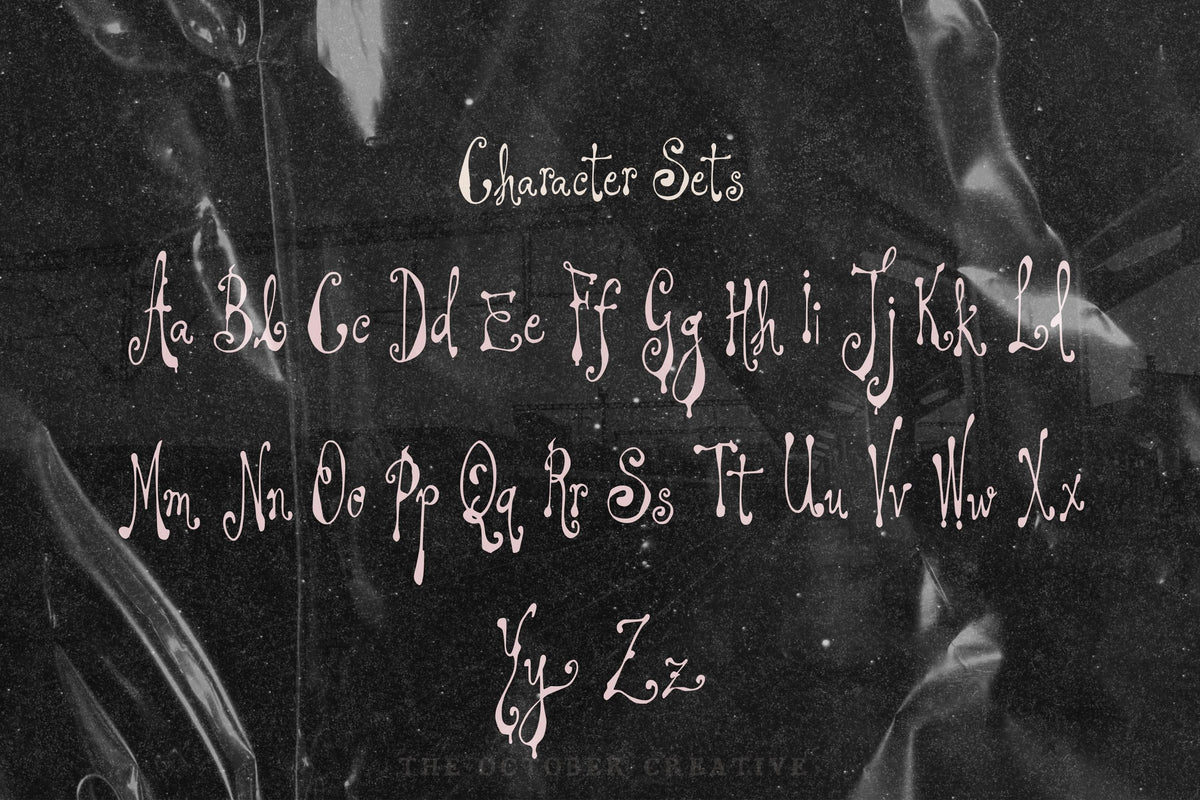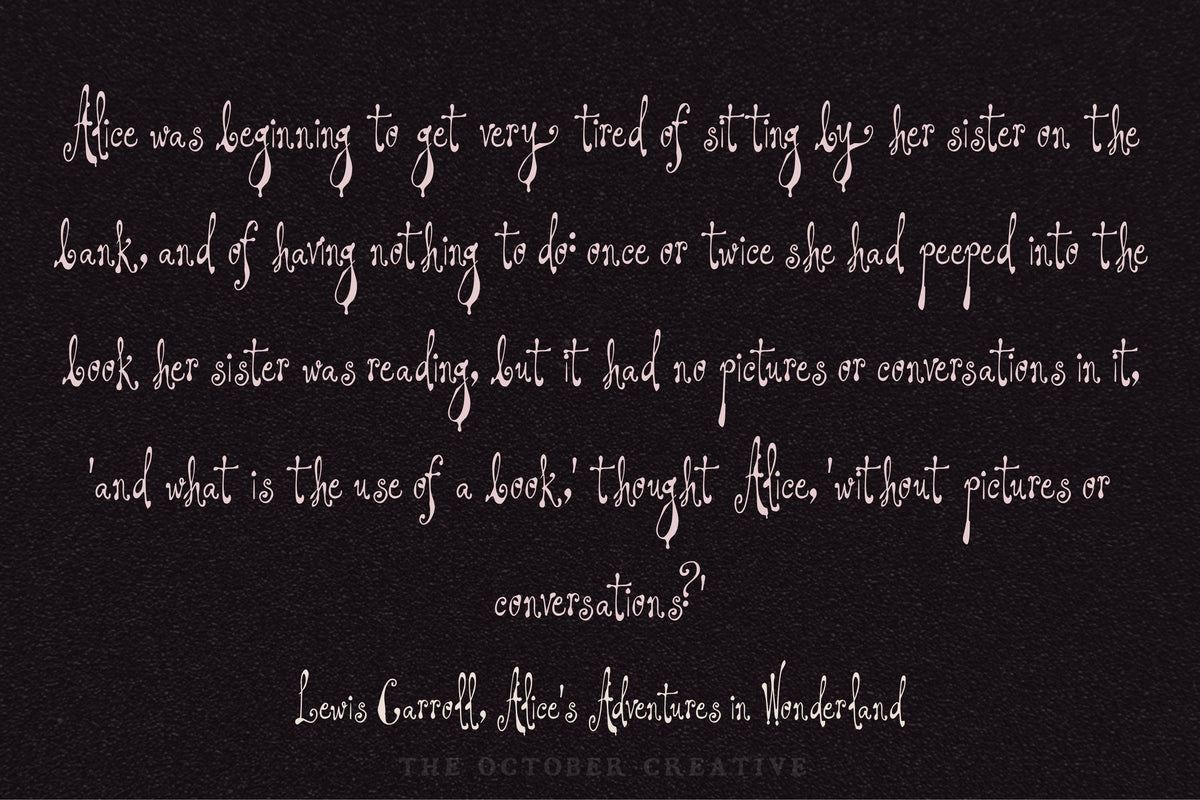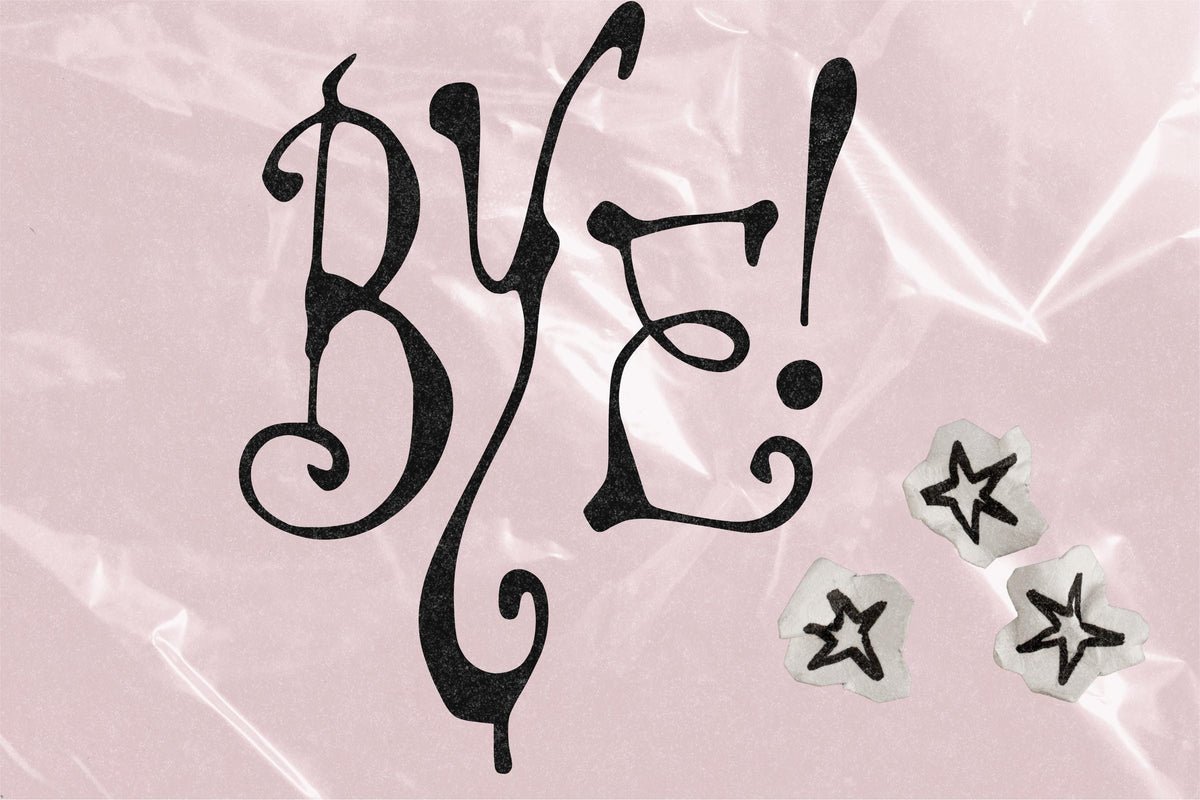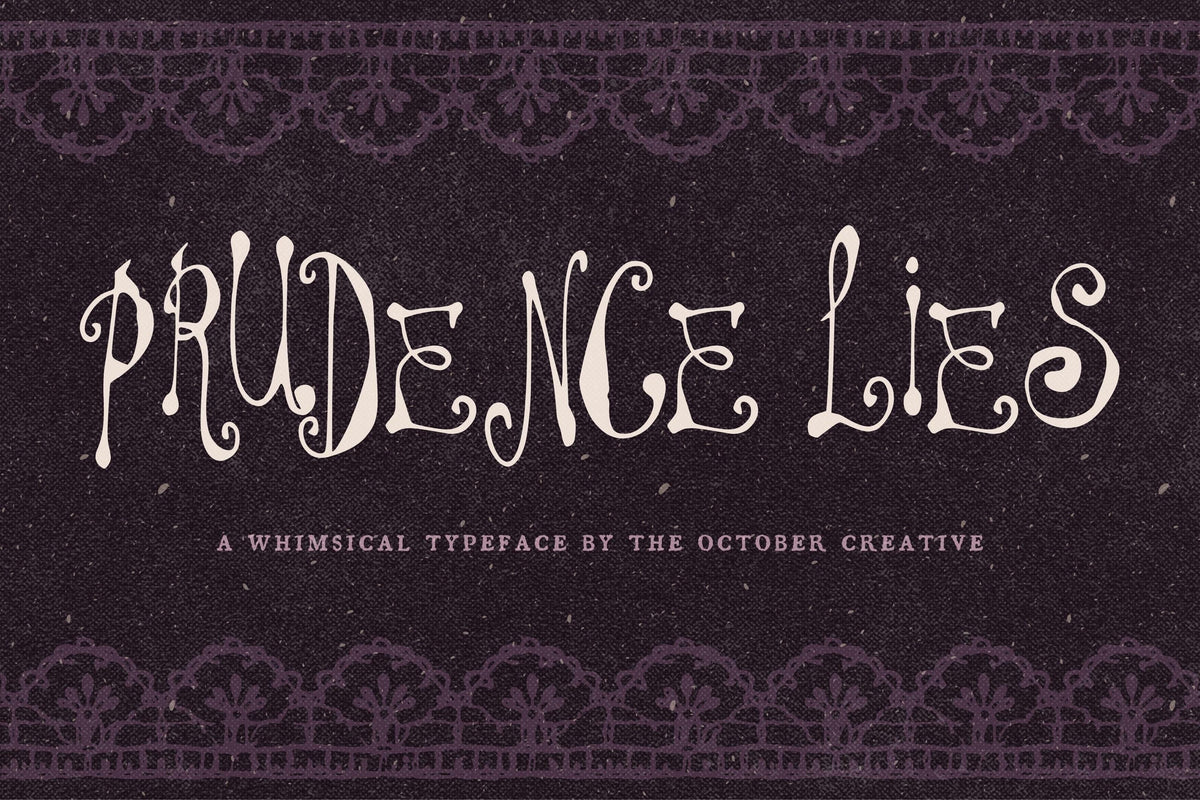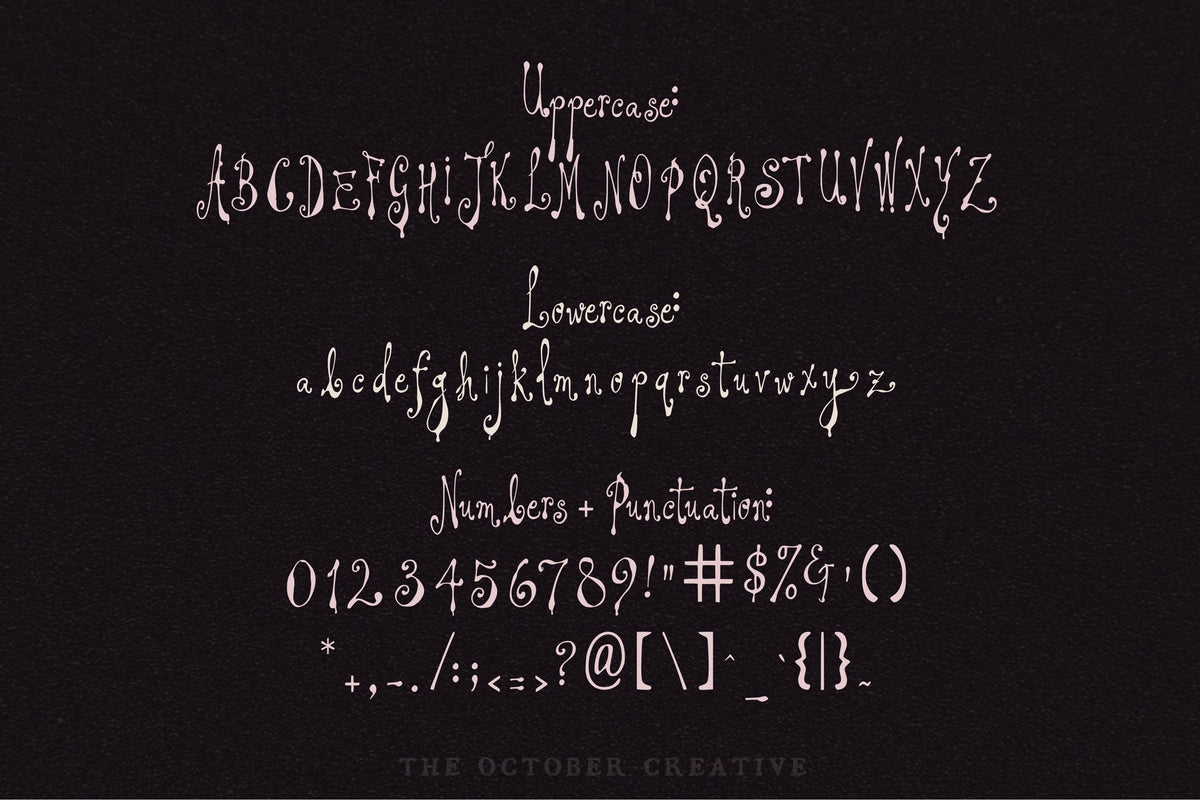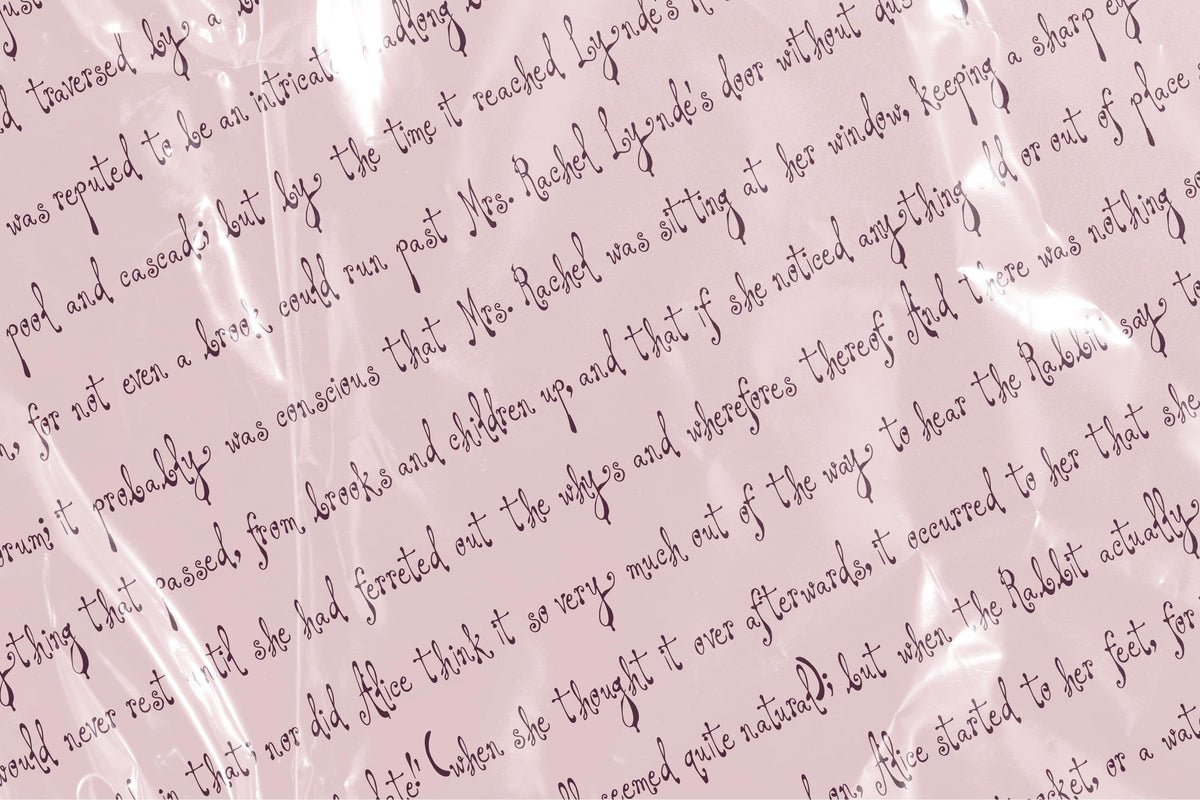
Prudence Lies Font
Prudence Lies has fine, slanted letters with long tails that look lovely across the cover of a diary. Use it for journal titles, personal stationery, and a short line from a letter you can't quite bring yourself to throw away.